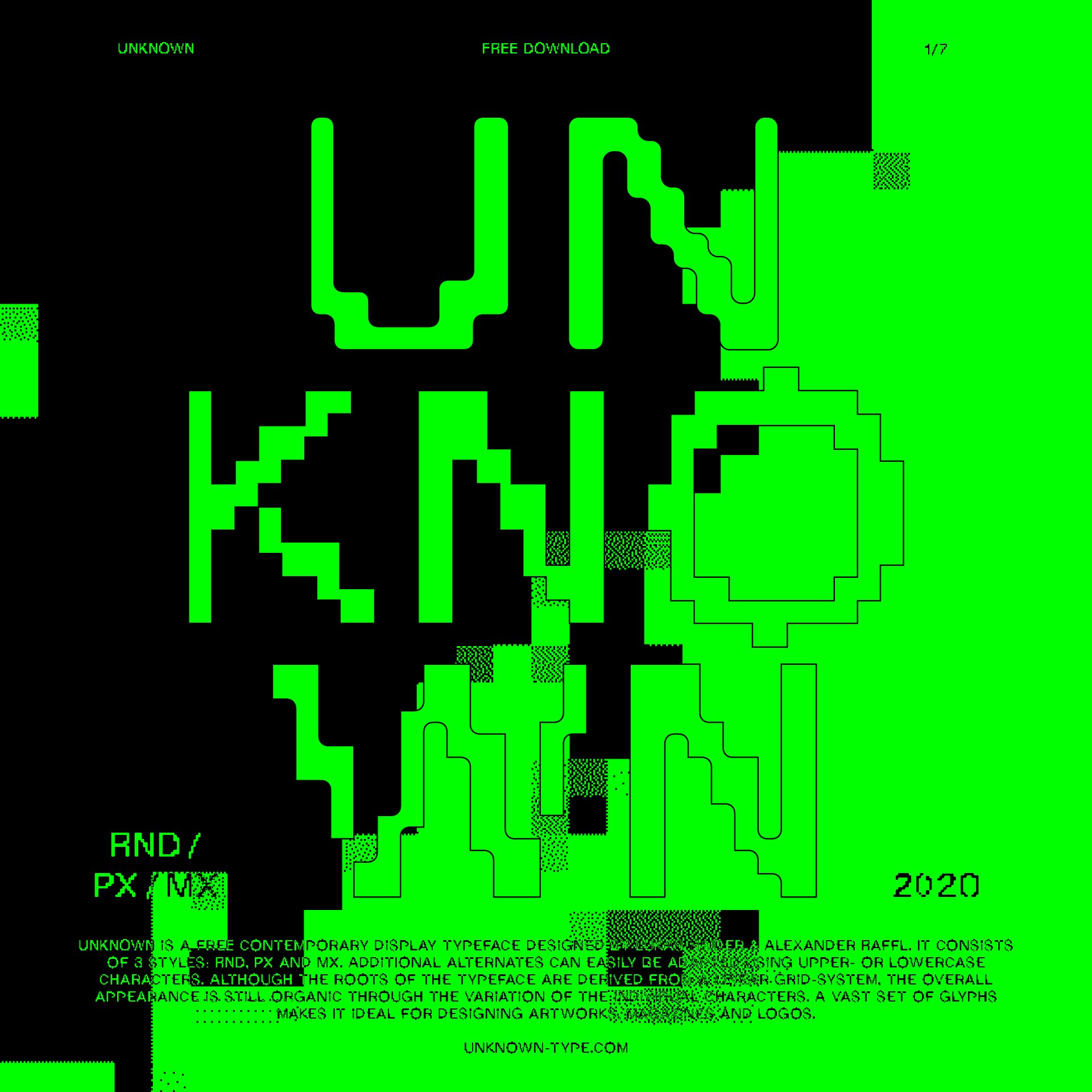
UNKNOWN Typeface | Mindsparkle Mag
UNKNOWN is a free contemporary display typeface designed by Lukas Haider & Alexander Raffl. It consists of 3 styles: RND, PX and MX. Additional alterna...